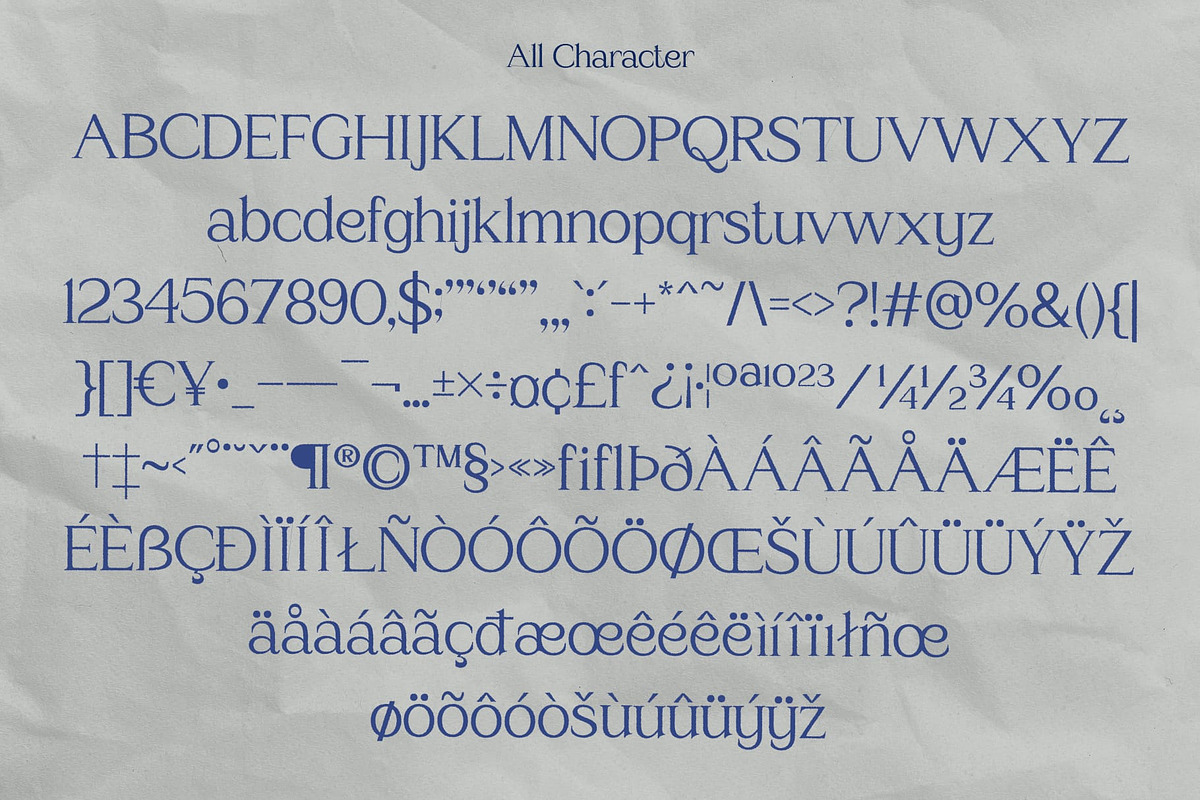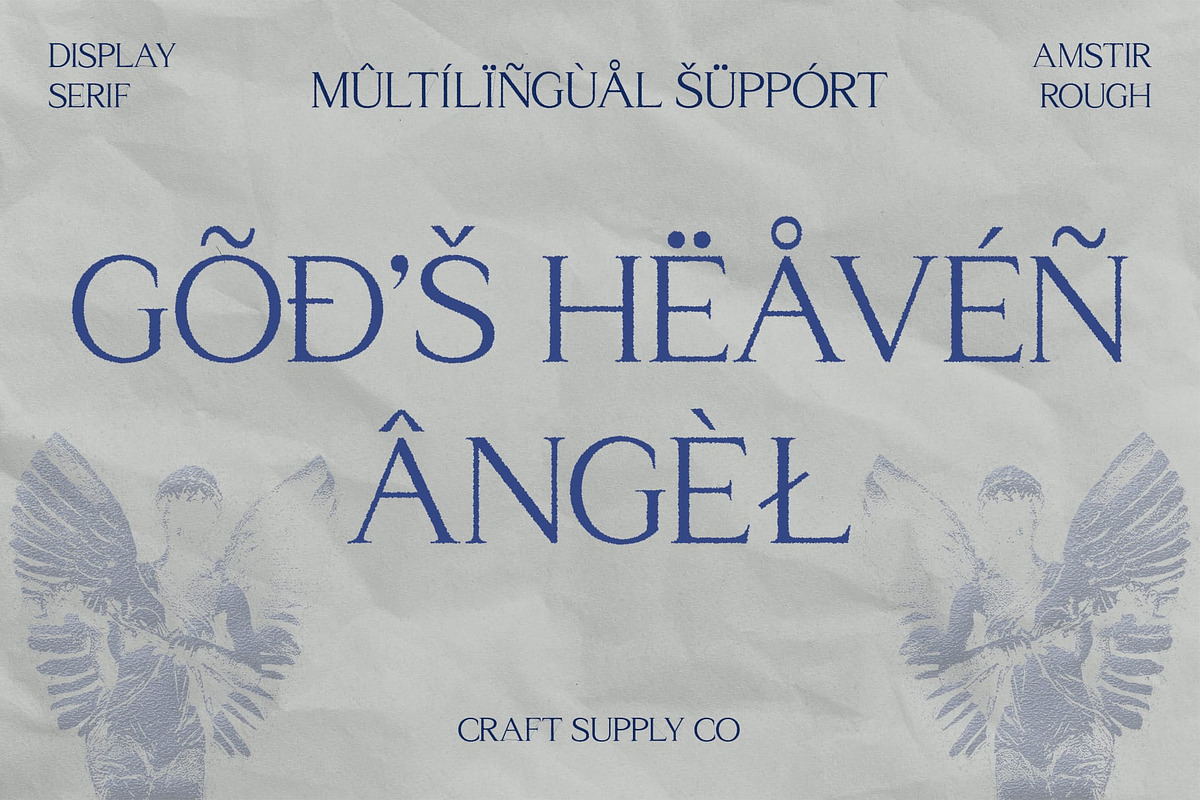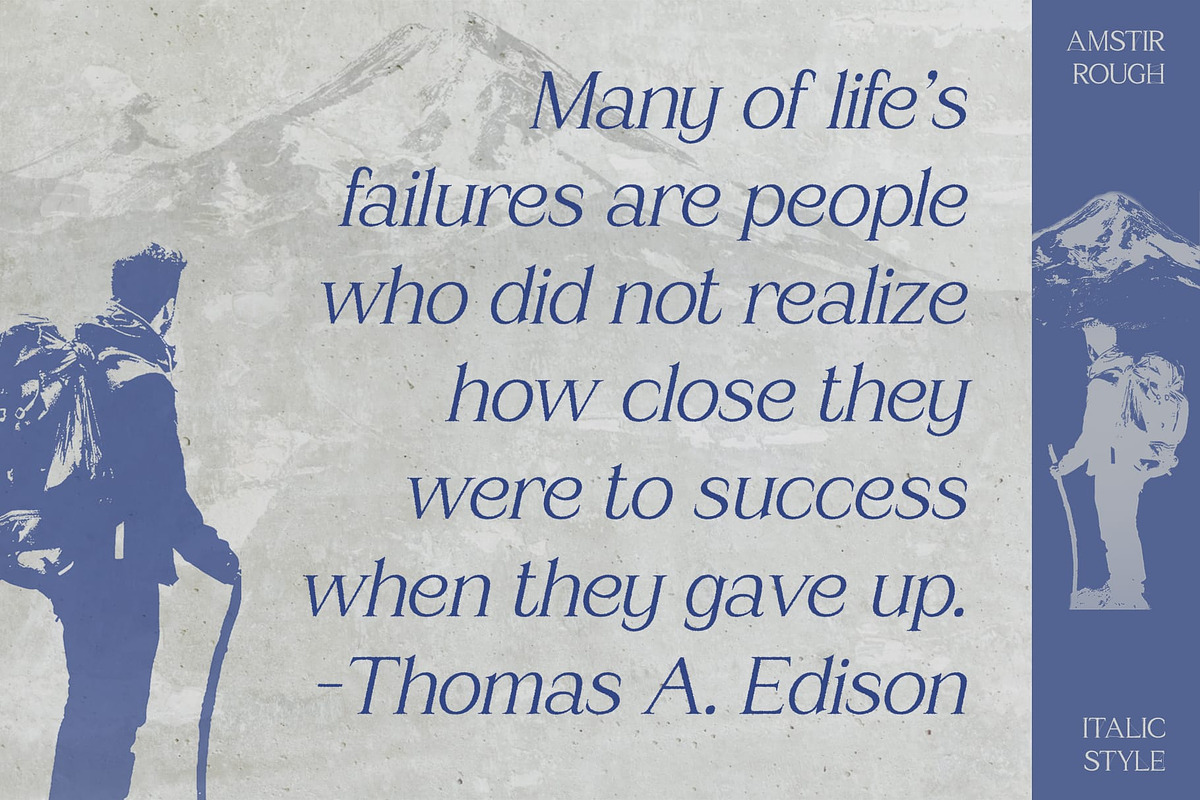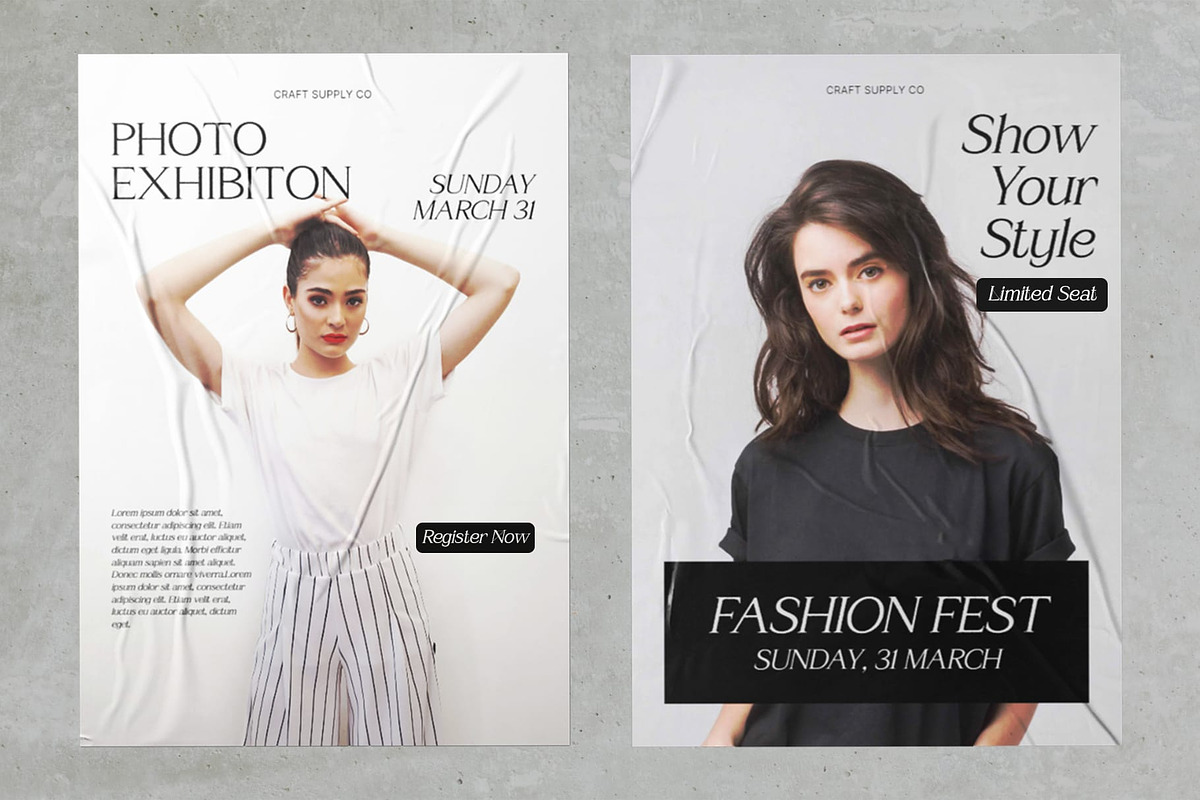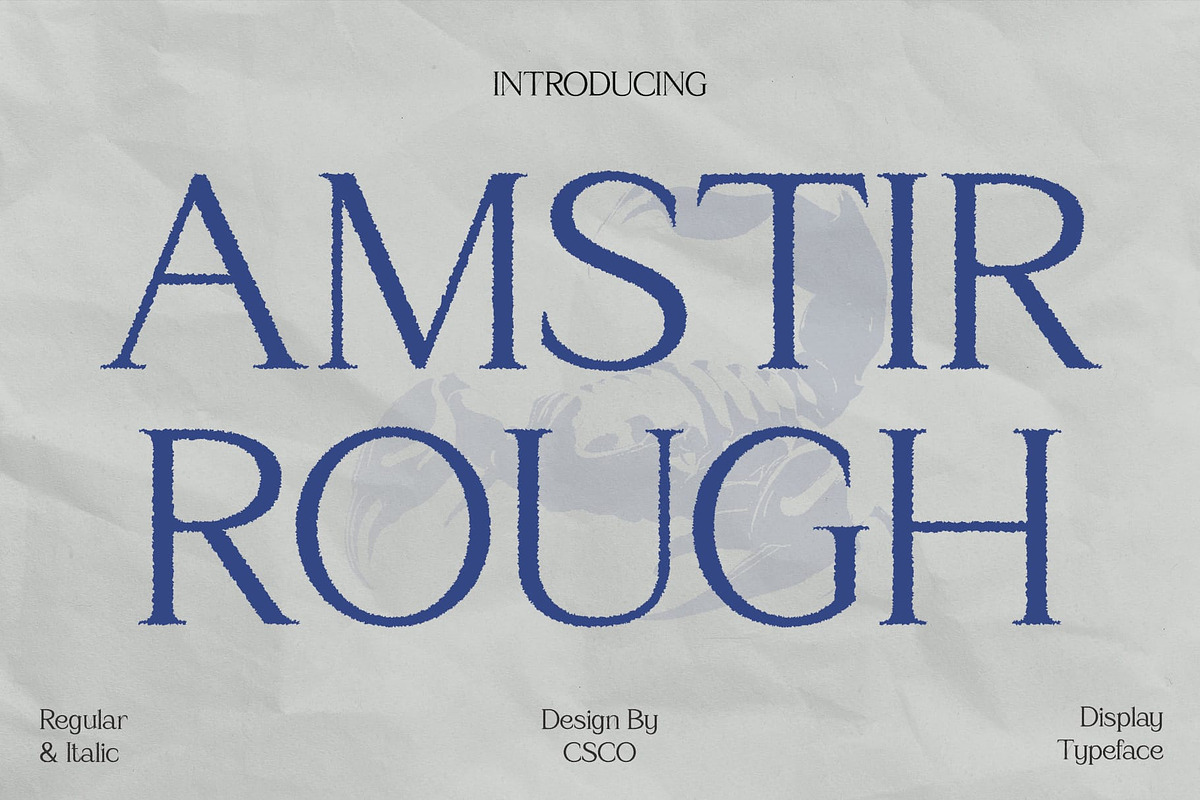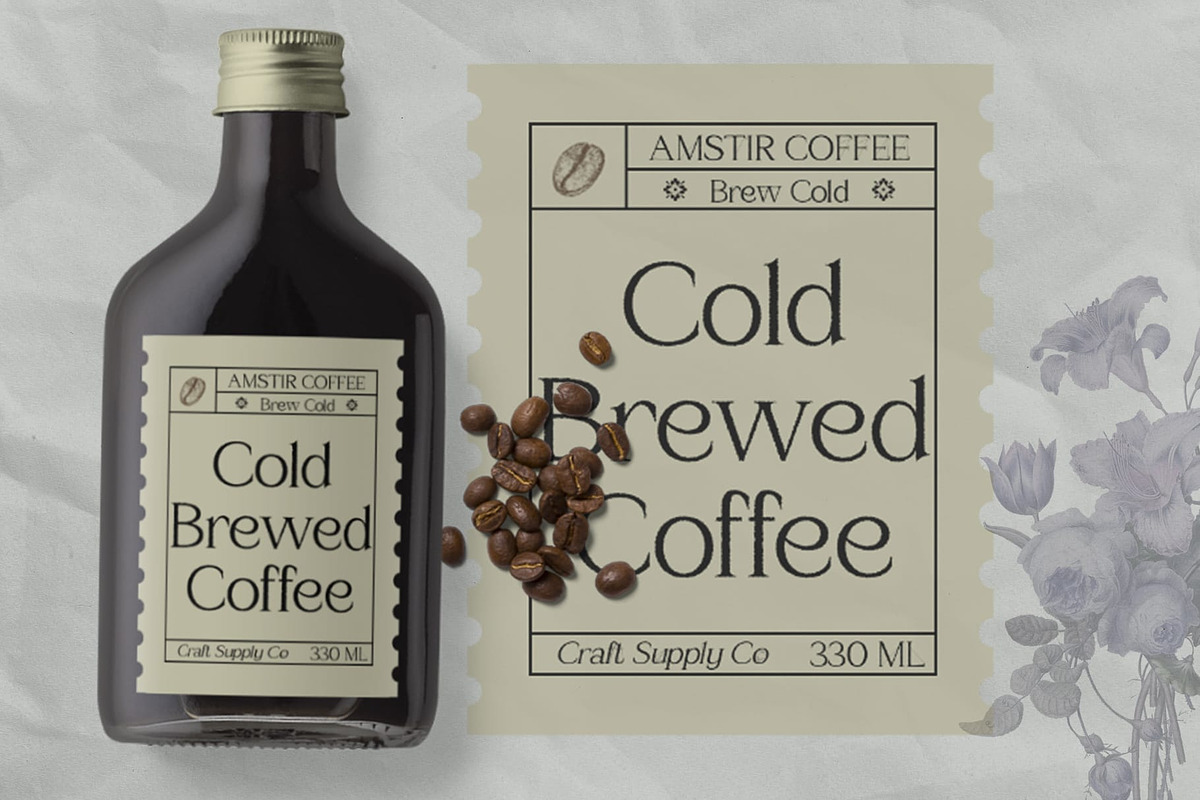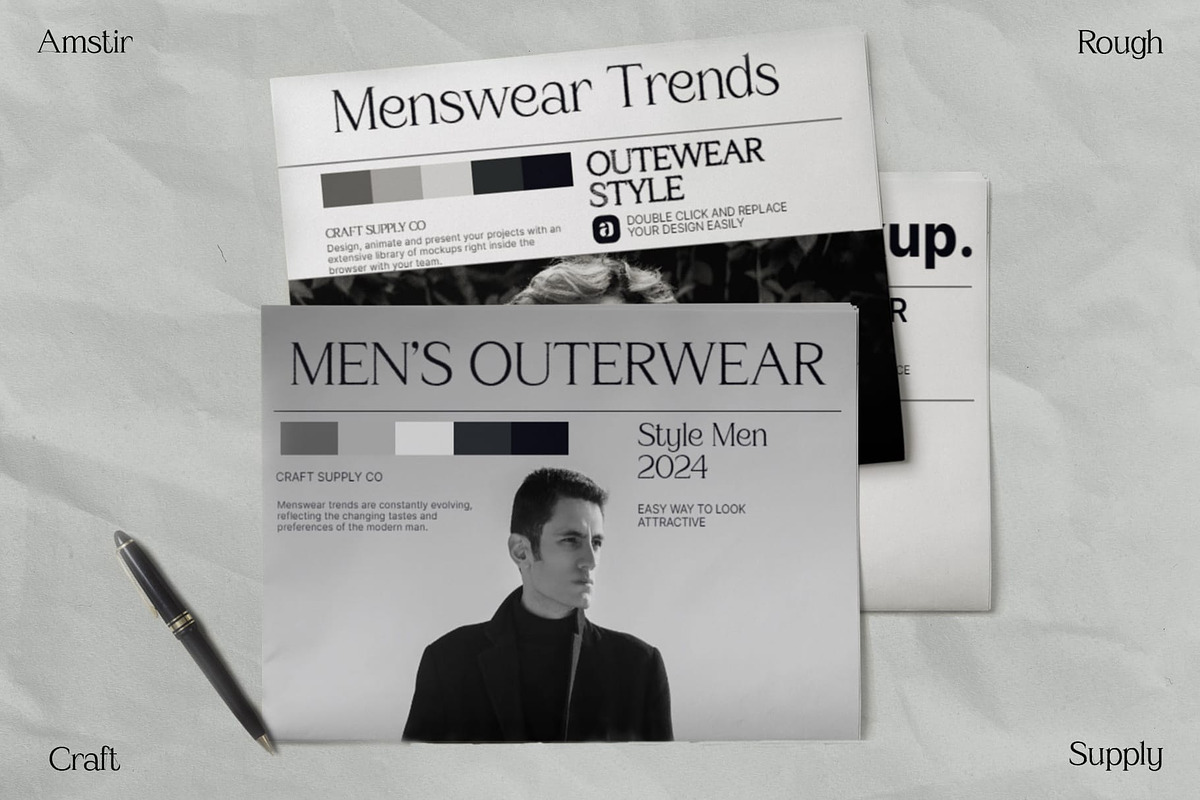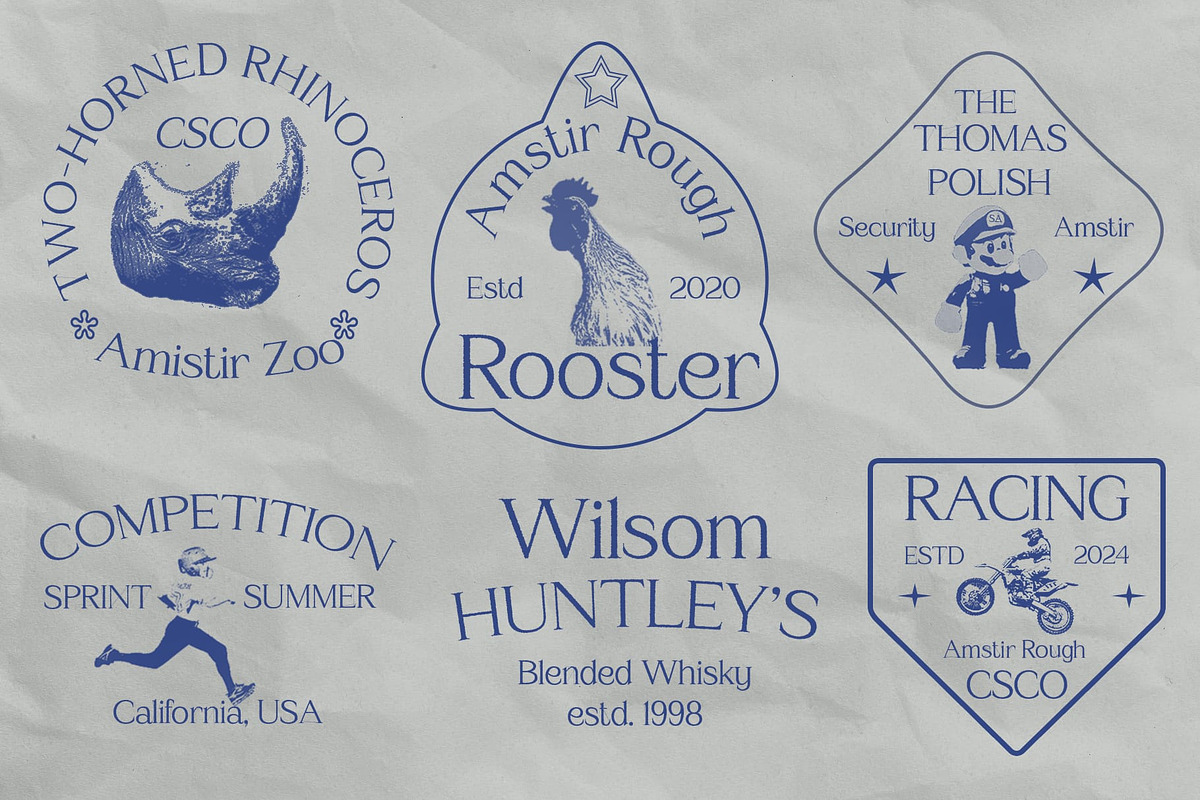
Amstir Rough
Amstir Rough: Vintage Charm in Display Typography
Retro-Inspired Serif Design Amstir Rough presents a striking display serif font characterized by its serif structure, reminiscent of vintage typography. Each letter is crafted with meticulous detail, exuding a timeless appeal.
Authentic Rough Texture The font’s distinctive feature lies in its rough texture, adding an authentic vintage vibe to any design. The roughness enhances the font’s character, evoking nostalgia and a sense of heritage.
Ideal for Vintage Aesthetics Tailored for projects requiring a vintage aesthetic, This font excels in branding, packaging, and editorial design. Its unique blend of serif elegance and rough texture offers versatility and charm.
Versatile Application Beyond its vintage allure, This font proves versatile in various design contexts. From posters to product labels, its bold presence and rough texture make a statement, captivating audiences.
Vintage Elegance Redefined This font redefines vintage elegance in display typography. With its retro-inspired serif design and authentic rough texture, it infuses projects with nostalgia and charm, making it an ideal choice for designers seeking to evoke a bygone era. Step into the world of This font and elevate your designs with timeless vintage appeal.